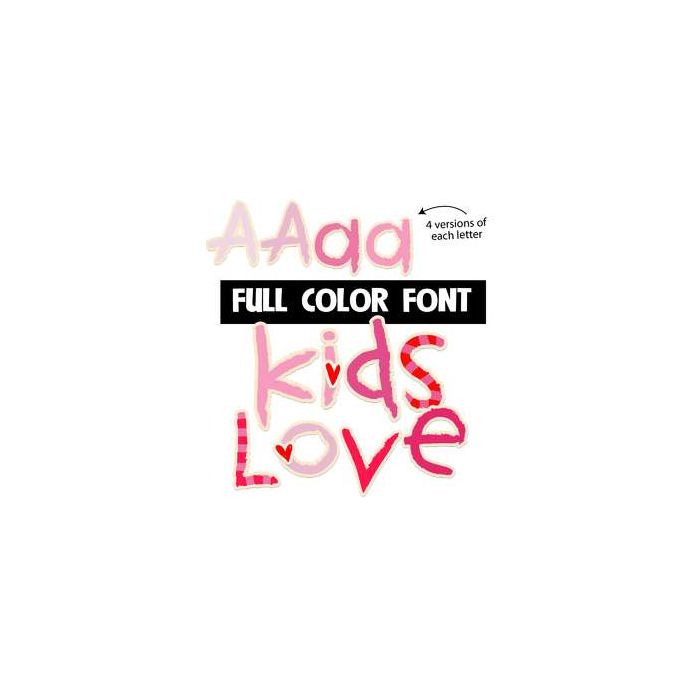
This full-color font features youthful lettering with colorful hearts. There is a second upper and lowercase you can access through your system's character map. This font works best for titles, displays, posters and more. Please note color fonts will show as black in non compatible programs. This font type is compatible with Silhouette Studio.